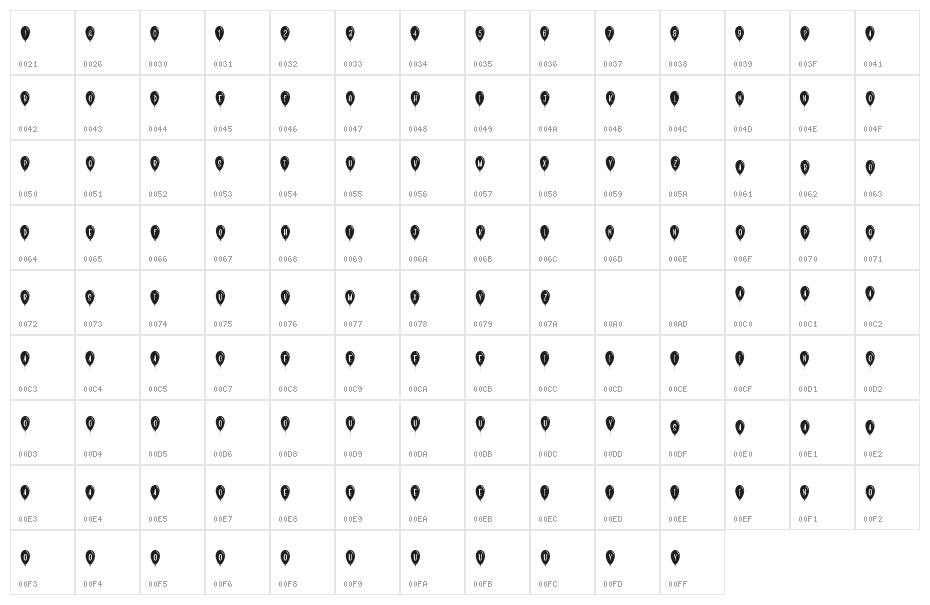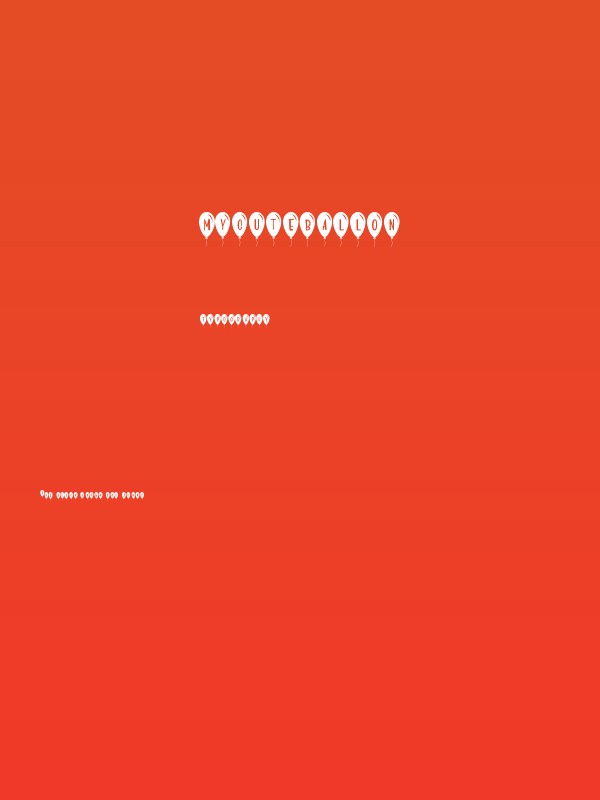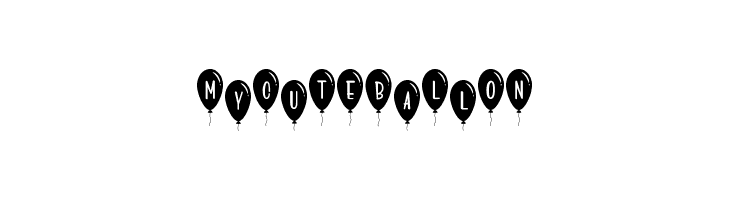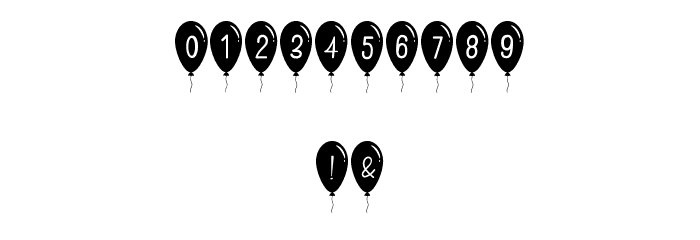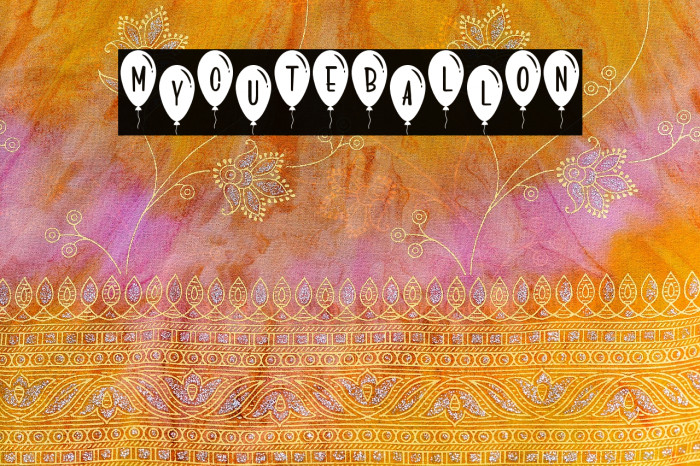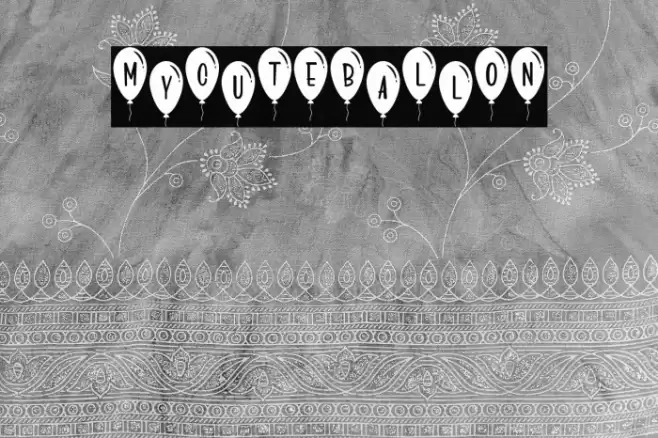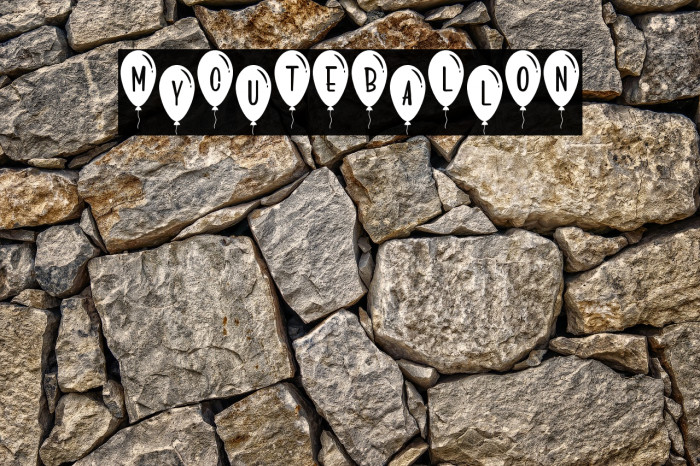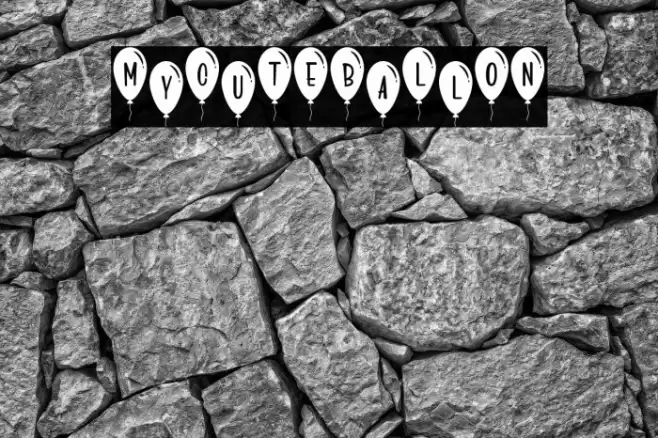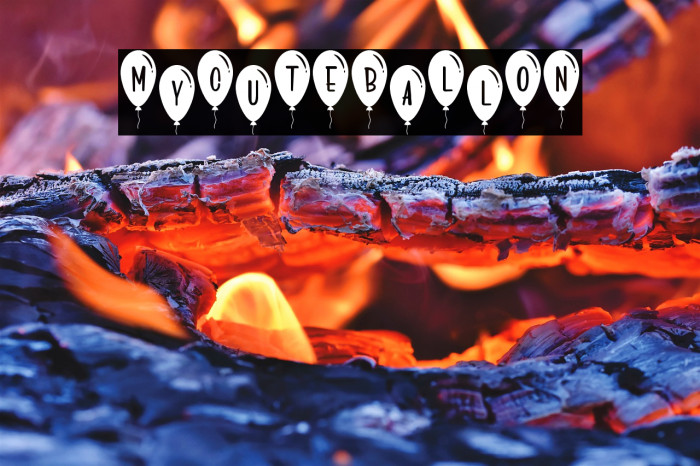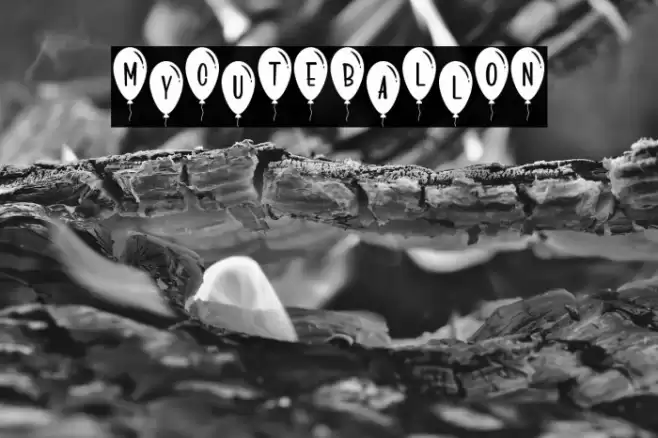
MyCuTEBaLlON Font
MyCuTEBaLlON Description
This playful and whimsical font features characters enclosed within balloon shapes, giving it a festive and lighthearted appearance. Each letter and number is centered within a black balloon silhouette, creating a unique and eye-catching design. The font maintains a consistent style across uppercase, lowercase, and numeric characters, with a smooth and rounded typeface that complements the balloon theme. The characters are bold and easily readable, making them suitable for various creative projects. The special characters, including an exclamation mark and ampersand, are also incorporated into the balloon design, maintaining the cohesive look. This font is perfect for projects that require a fun and celebratory touch, such as party invitations, children's event flyers, or playful branding materials.
| Overall Style | Playful, Festive |
| Use Case | Headlines, Logos, Invitations |
| Proposed Projects | Ideal for party invitations, children's event flyers, playful branding, and festive decorations. |